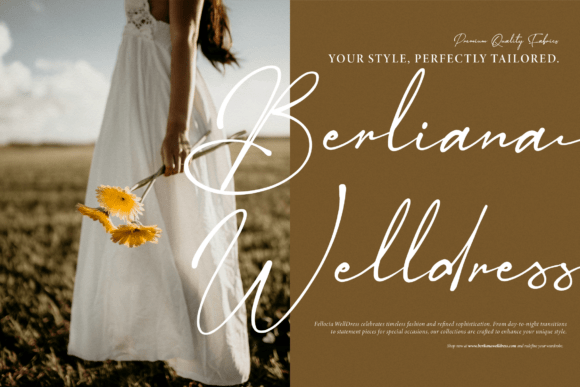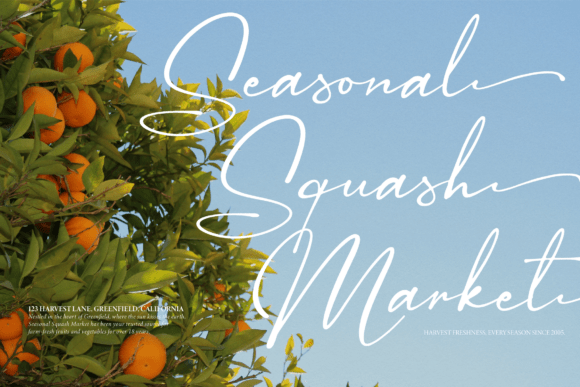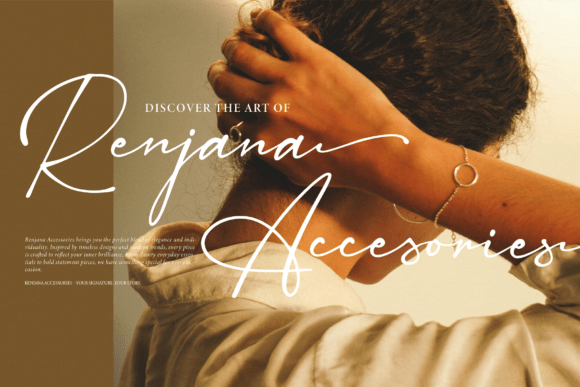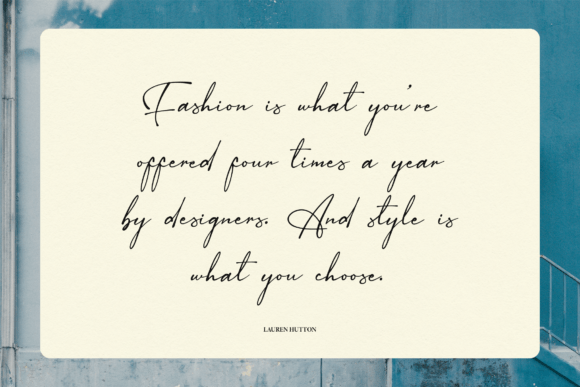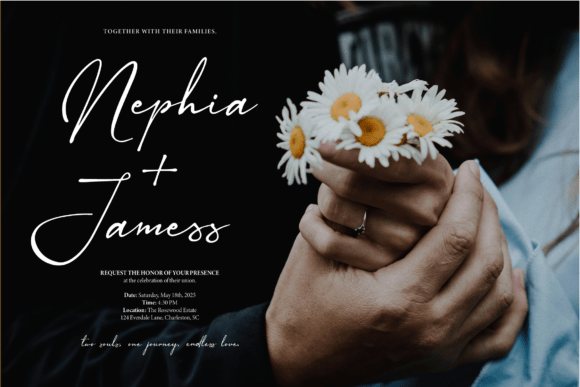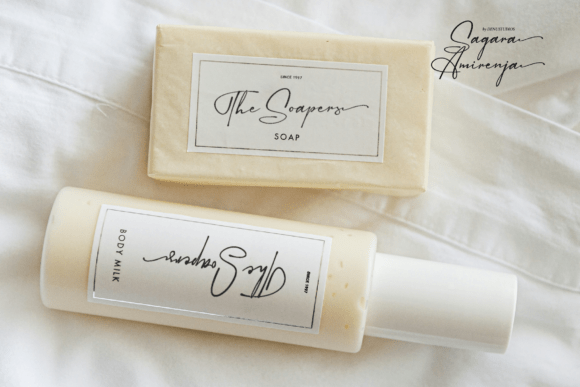
Introduction to Sagara Amirenja Font
Have you ever found yourself in a creative rut, staring at a blank canvas or screen, desperately searching for the perfect font to bring your vision to life? This is where the Sagara Amirenja Font comes in – a timeless classic signature font that’s sure to elevate any design project.
As a valuable resource for designers, the Sagara Amirenja Font offers a unique blend of elegance and sophistication, making it an ideal choice for a wide range of creative projects, from logos and branding to homeware designs and product packaging.
What sets this font apart is its high-quality design and transparent background, making it easy to use and customize for any project. Whether you’re looking to create a beautiful quote, poster, or shopping bag, the Sagara Amirenja Font is a versatile design resource that’s sure to inspire your next creative project.
Key Features of Sagara Amirenja Font
- Features a unique, modern design aesthetic that can add a touch of sophistication to any creative project.
Honest Review: Sagara Amirenja Font
I recently stumbled upon the Sagara Amirenja Font while searching for a high-quality design resource for a creative project. As a designer, I was excited to try it out and see how it would perform.
What works well about this font is its unique, elegant design. It has a ✨ beautiful script style that adds a touch of sophistication to any text. The transparent background makes it easy to use in various design contexts, from branding to digital design.
- High quality: The font is well-designed and has a high level of detail, making it perfect for creative projects.
- Customizable: The font can be easily customized to fit your design needs, from adjusting the size to changing the color.
One limitation of the Sagara Amirenja Font is that it may not be suitable for very small text sizes, as it can become difficult to read. ⚠️ Additionally, some users may find the font too ornate or over-the-top for certain design projects.
Overall, I’m impressed with the Sagara Amirenja Font and would recommend it to designers looking for a high-quality, creative design resource. With its unique design and customizable features, it’s an excellent option for a variety of design projects.
To get the most out of the Sagara Amirenja Font, use it in creative projects that require a high-quality, elegant font. The font’s transparent background makes it perfect for overlaying text on images. Experiment with different font sizes and styles to add visual interest to your designs.
The Sagara Amirenja Font is commonly used in logo designs, brochures, business cards, and other marketing materials. Its high-quality design makes it perfect for creative projects that require a professional touch.